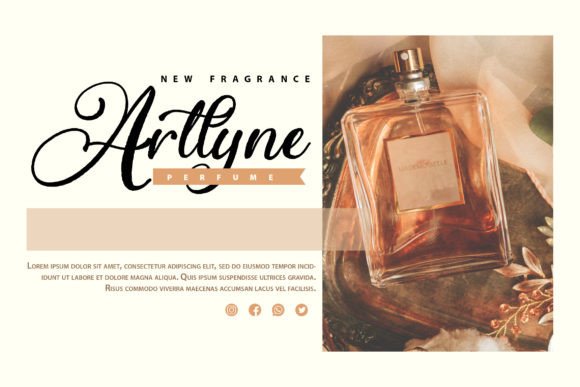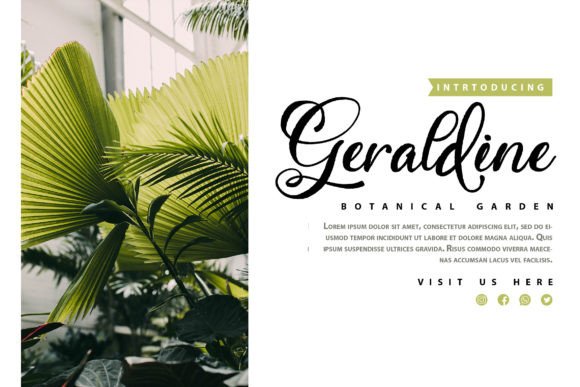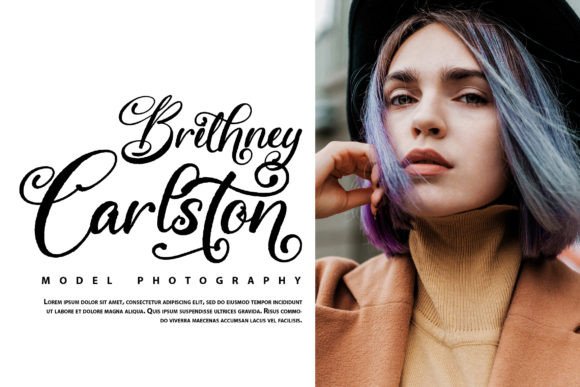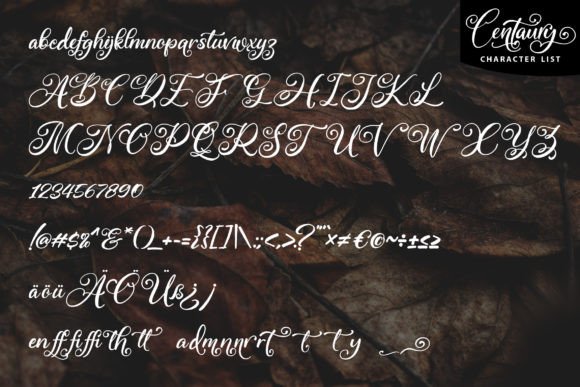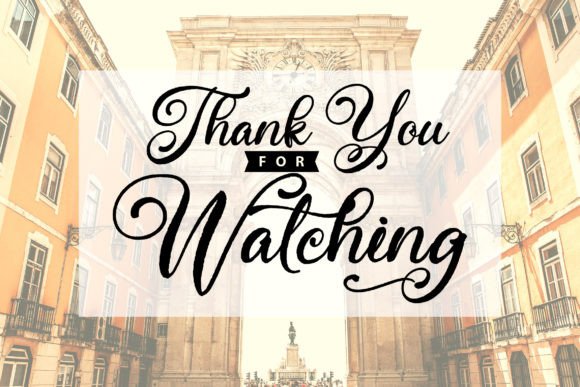
Centaury Font: Elevate Your Design with Romantic Elegance
In the world of typography, few fonts capture the essence of romance and luxury as effortlessly as Centaury. This exquisite calligraphy typeface is designed to add a touch of sophistication and elegance to any design project. With its unique charm and fluid character movement, Centaury is poised to become the go-to choice for designers and crafters seeking to infuse their creations with a sense of high-end style.
The Allure of Centaury
Centaury’s design is characterized by its romantic and sweet calligraphy style, where characters seem to dance along the baseline. This dynamic movement imbues the font with a sense of life and energy, making it perfect for projects that require a touch of whimsy and luxury. Whether you’re working on a branding project, packaging design, or a crafting project, Centaury offers the versatility and elegance to elevate your work.
One of the standout features of Centaury is its PUA (Private Use Area) encoding. This means that accessing the font’s extensive range of glyphs and ligatures is incredibly straightforward. Designers can easily incorporate these special characters into their work, allowing for greater creativity and flexibility. The PUA encoding ensures that you can make the most of Centaury’s capabilities, making it an invaluable asset for any design project.
Applications of Centaury
The versatility of Centaury makes it suitable for a wide range of applications. Here are a few ideas to get you started:
- Branding and Logos: Use Centaury to create a luxurious and memorable brand identity. Its unique style will help your brand stand out and convey a sense of elegance and sophistication.
- Wedding and Event Design: Add a touch of romance to wedding invitations, stationery, and event branding with Centaury. Its sweet and romantic style is perfect for creating memorable and beautiful designs.
- Packaging Design: Elevate your product packaging with Centaury. Its luxurious feel makes it ideal for high-end products, adding a premium touch to your packaging.
- Crafting Projects: For crafters, Centaury offers endless possibilities. Use it to create beautiful journal pages, decorate scrapbooking projects, or add a personal touch to handmade cards and gifts.
Why Choose Centaury?
With so many fonts available, why choose Centaury? Here are a few compelling reasons:
- Unique Style: Centaury’s distinctive calligraphy style sets it apart from more traditional fonts. Its romantic and sweet charm is unmatched, making it perfect for designers looking for something special.
- Ease of Use: Thanks to its PUA encoding, working with Centaury is incredibly easy. You can access all the glyphs and ligatures without any hassle, saving you time and effort.
- Versatility: Whether you’re working on a digital project or a physical one, Centaury adapts beautifully. Its elegance shines through in both print and digital formats.
Centaury is more than just a font; it’s a design element that can transform your projects with its romantic elegance and luxurious feel. Its unique calligraphy style, combined with PUA encoding for easy access to glyphs and ligatures, makes it an invaluable tool for designers and crafters alike. Whether you’re aiming to create a high-end brand identity, design beautiful wedding stationery, or craft something special, Centaury offers the perfect blend of style and functionality. Elevate your designs with Centaury and discover the difference it can make in your work.